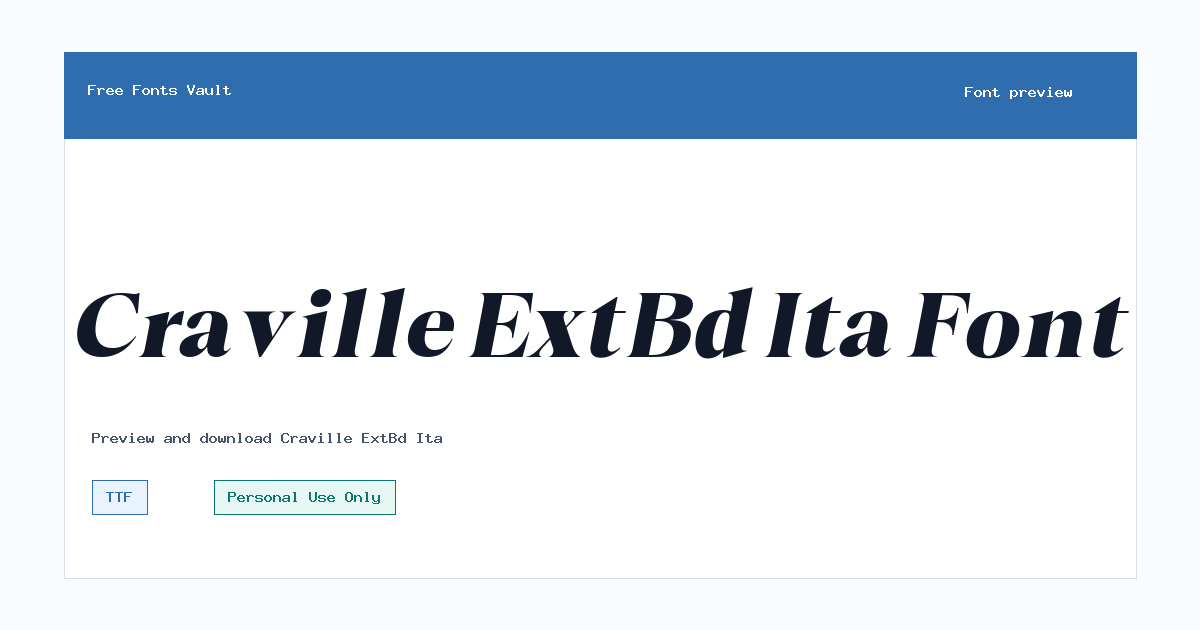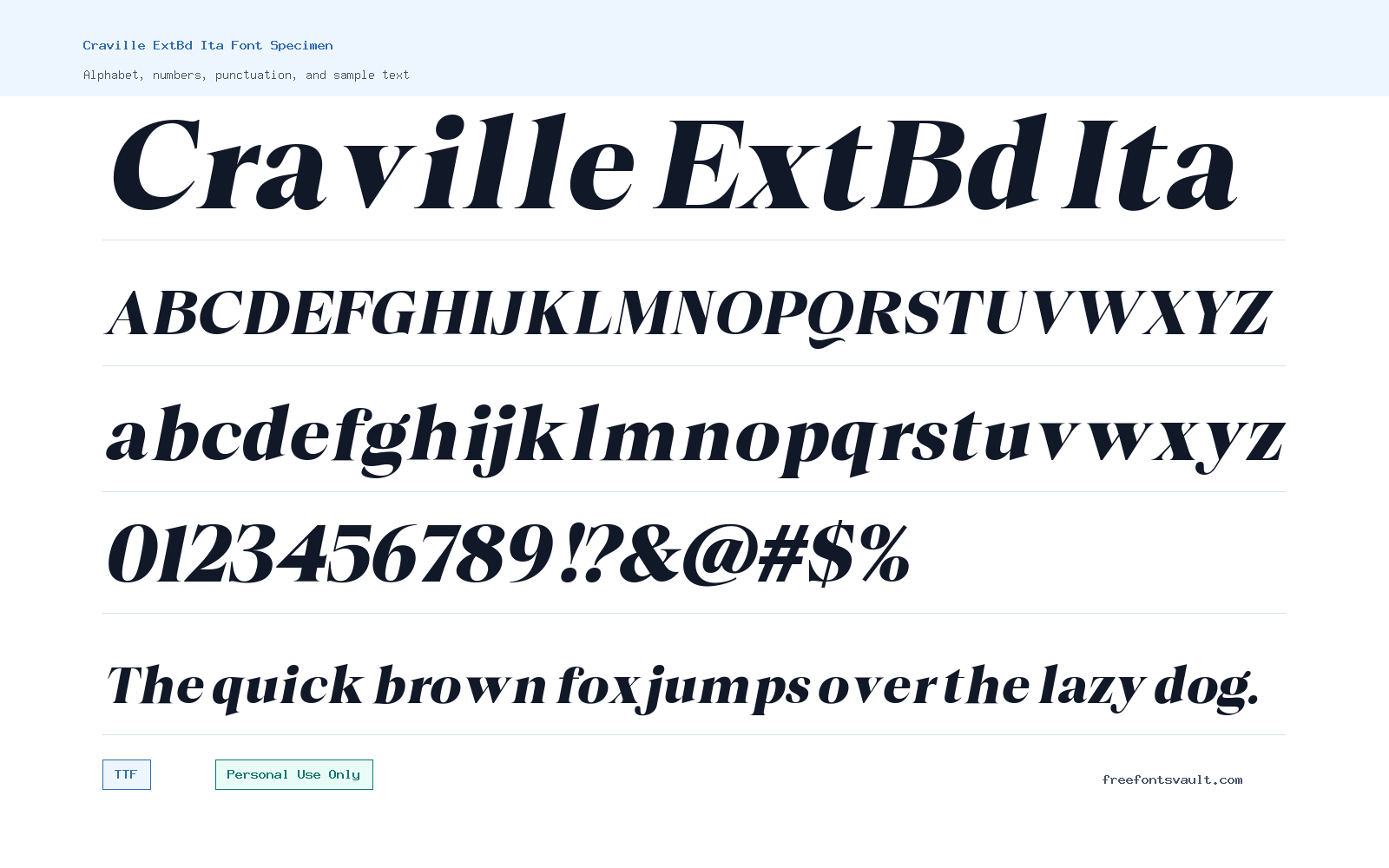
Craville ExtBd Ita
Craville ExtBd Ita font.
Craville ExtBd Ita is a heavy italic style from the Craville Serif Font Family, offered as a TTF font for personal-use projects. It is best approached as a display font: try it in the preview box with short words, titles, and logo-style text before using it in a layout.
About Craville ExtBd Ita
Craville ExtBd Ita combines two strong choices in one file: extra-bold weight and italic movement. That makes it useful when you want text to feel more prominent than a standard serif, but less rigid than an upright bold face. The slanted form can add motion to headlines, poster titles, packaging tests, social graphics, and personal branding drafts. Because the style is bold and italic, it will usually work better in short bursts than in long reading text. A single word, a name, a title line, or a short phrase will show its personality more clearly than a dense paragraph.
For logo work and display mockups, start by testing the exact words you plan to use. Fonts with strong weight and slant can change how letters connect visually, especially around narrow letters, capitals, and punctuation. Check spacing between letter pairs, compare all-caps and title case, and preview the font at the size you actually need. If you are building a poster or web hero mockup, give the letters enough room and avoid placing the font over a busy background. The TTF format is widely supported by desktop design tools, so it should be easy to test in common editing and layout software after download.
- ExtraBold Italic styling suited to short display text, titles, and strong typographic accents.
- Part of the Craville Serif Font Family based on the license naming.
- Personal poster designs, quote graphics, mood boards, and experimental layouts.
- Logo concepts and branding drafts where a bold italic serif look is being explored.
- Web mockups, hero headings, landing-page concept art, and social media previews.
- Packaging studies, invitation drafts, album-style titles, and short editorial display text.
- Typography practice where you want to compare heavy italic serif lettering with simpler companion fonts.
Use Craville ExtBd Ita where the text can be large enough to show the italic shape and bold weight. It can make a strong first impression in a title, but it may become tiring in body copy, captions, menus, or long paragraphs. For pairing, keep the supporting type simple: a clean sans serif or a quiet text serif will usually let the headline stand out. If you use it in a logo concept, test the name at small sizes too, because bold italic details can lose clarity when reduced. For web mockups, treat it as a visual direction first and confirm licensing before moving into a live commercial site.
What kind of font is Craville ExtBd Ita?
It is listed as an ExtraBold Italic TTF style from the Craville Serif Font Family. That makes it most suitable for display use such as titles, logos, posters, and mockups rather than long body text.
What should I check in the font preview?
Preview your actual words, not just a sample phrase. Check capitals, lowercase letters, spacing, punctuation, and how the font looks at both large and small sizes.
What fonts pair well with Craville ExtBd Ita?
A simple sans serif or restrained text serif is a safer pairing choice. Let Craville ExtBd Ita handle the headline, then use a calmer font for descriptions, buttons, or longer reading text.